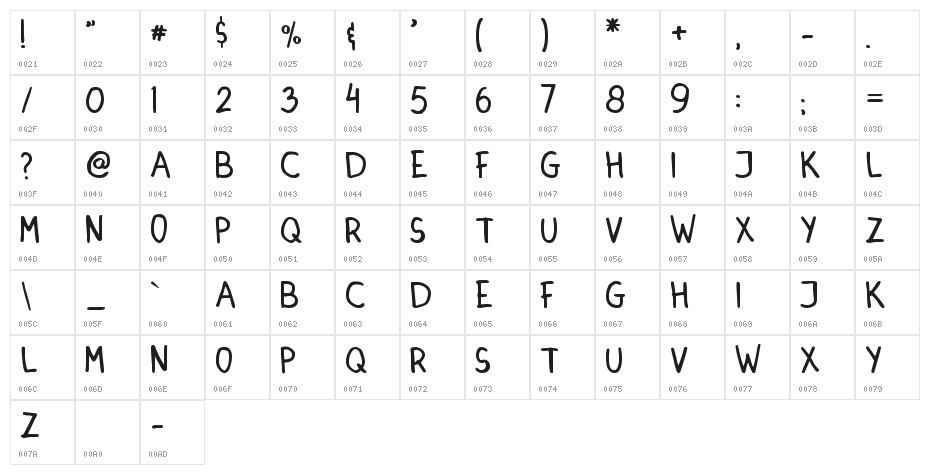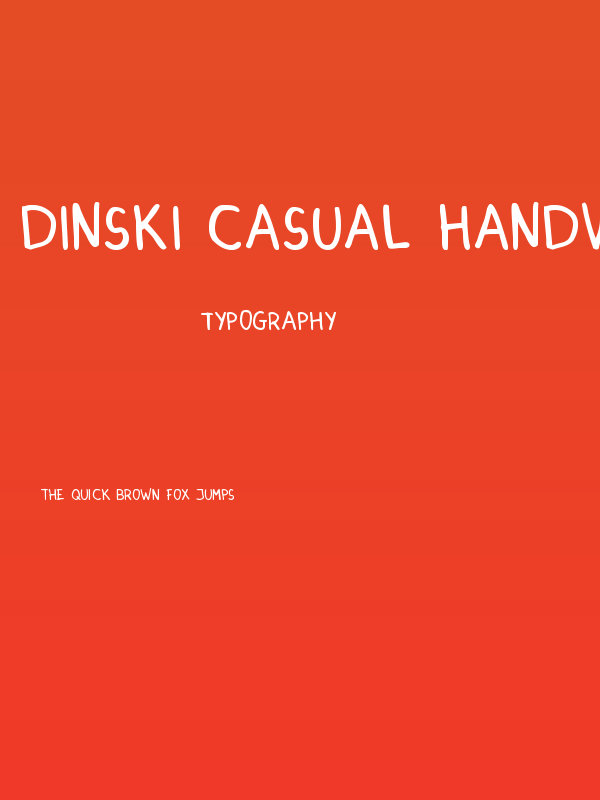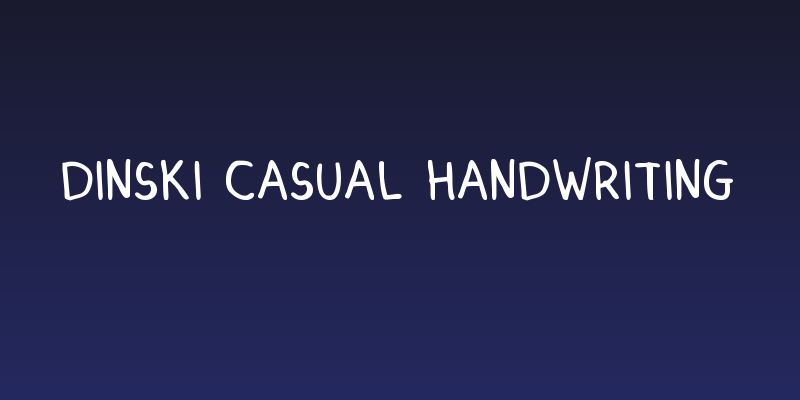
DINSKI CASUAL HANDWRITING Font
DINSKI CASUAL HANDWRITING Description
This font exudes a casual and playful vibe, reminiscent of natural handwriting. The characters are slightly rounded with a consistent stroke width, giving it a friendly and approachable appearance. The uppercase and lowercase letters maintain a uniform style, enhancing readability while retaining a whimsical charm. The numbers and special characters are crafted with the same playful touch, making them suitable for informal and creative projects. The overall design is clean and uncluttered, making it versatile for various applications.
| Proposed Projects | Ideal for greeting cards, children's books, personal blogs, and informal branding. |